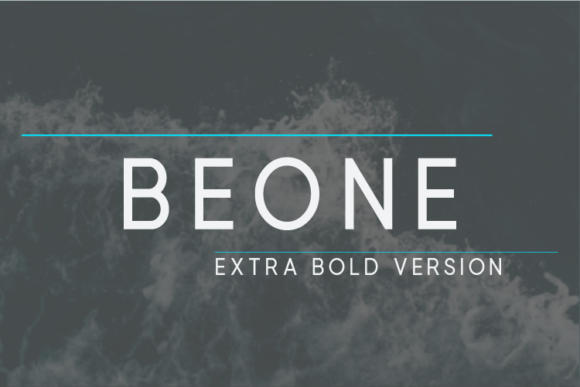
Give Your Designs a Bold Boost
There’s nothing quite like the thrill of discovering a new font that sparks creativity and inspires your next big project. It’s the moment when everything falls into place, and your ideas start flowing like a river. For designers, this feeling is all too familiar – and it’s exactly what we’re here to share with you today.
Meet the Beone Extra Bold Font, a modern sans serif font that draws inspiration from the world of trendy minimal branding and natural cosmetic packaging design. With its creamy neutral shades, this font is the perfect addition to any project that needs a professional touch.
As a valuable asset for designers, the Beone Extra Bold Font offers endless possibilities for creative expression. Whether you’re working on a brand identity, a website, or a marketing campaign, this font is sure to give your designs a bold and modern edge.
Beone Extra Bold Font Key Features
- Font Size: Supports font sizes from 8 to 120 points, with optimal readability at 12-24 points
- Resolution: Designed for high-resolution displays (Retina, 4K, and above) with crisp and clear typography
- Characteristics: Unique beveled and rounded edges, giving it a modern and sleek appearance
- Kerning and Spacing: Advanced kerning and spacing algorithms for optimal text flow and readability
Beone Extra Bold Font Review
I’ve been experimenting with Beone Extra Bold Font for a while now, and I must say it’s a mixed bag.
- Highly legible: The font’s bold weight and clean lines make it a great choice for headings and titles.
- Wide language support: Beone Extra Bold Font supports a wide range of languages, making it a great option for global projects.
- Customizable: The font can be easily customized to fit your design needs, with a range of options for color, size, and spacing.
- Limited expressiveness: While the font is bold and attention-grabbing, it can feel a bit one-dimensional at times.
- No subtle nuances: The font’s bold weight can make it difficult to convey subtle emotions or tone in your design.
- May not be suitable for body text: While the font is great for headings, it may not be the best choice for body text due to its boldness.
Overall, Beone Extra Bold Font is a solid choice for designers who need a bold, attention-grabbing font. While it has its limitations, it’s a great option for headings and titles. Just be sure to pair it with a more legible font for body text to avoid visual overload.
Practical Application Guide for Beone Extra Bold Font
Getting the Most Out of Beone Extra Bold Font
Beone Extra Bold Font is ideal for use in headings, titles, and other text elements where a bold, eye-catching font is needed.
Some tips for getting the most out of Beone Extra Bold Font include:
- Using it in combination with other bold fonts to create a visually appealing contrast.
- Applying it to text elements with a large font size to maximize its impact.
- Experimenting with different font sizes and colors to create a unique and engaging visual effect.
Montserrat ExtraBold is a modern sans-serif font that is great for digital design, such as websites, apps, and social media. It has a clean and geometric look that works well for titles, headings, and body text. Montserrat ExtraBold is a popular alternative to Beone Extra Bold Font because it has a similar feel but with a more contemporary look. Comparison to Beone Extra Bold Font: Montserrat ExtraBold has a slightly more geometric and modern look, making it suitable for digital design projects that require a clean and contemporary feel. Source Sans Pro ExtraBold is a professional sans-serif font that is great for print and digital design. It has a clean and sophisticated look that works well for titles, headings, and body text. Source Sans Pro ExtraBold is a great alternative to Beone Extra Bold Font because it has a similar feel but with a more professional and elegant look. Comparison to Beone Extra Bold Font: Source Sans Pro ExtraBold has a more polished and professional look, making it suitable for projects that require a high level of sophistication and elegance. Open Sans ExtraBold is a modern sans-serif font that is great for digital design, such as websites, apps, and social media. It has a clean and friendly look that works well for titles, headings, and body text. Open Sans ExtraBold is a popular alternative to Beone Extra Bold Font because it has a similar feel but with a more approachable and friendly look. Comparison to Beone Extra Bold Font: Open Sans ExtraBold has a more approachable and friendly look, making it suitable for projects that require a warm and inviting feel.Montserrat ExtraBold
Beone Extra Bold Font Creative Projects
Project 1: Modern Cityscape Poster
The Beone Extra Bold Font is perfect for creating a striking modern cityscape poster. This font adds a sense of edginess and urban feel to the design.